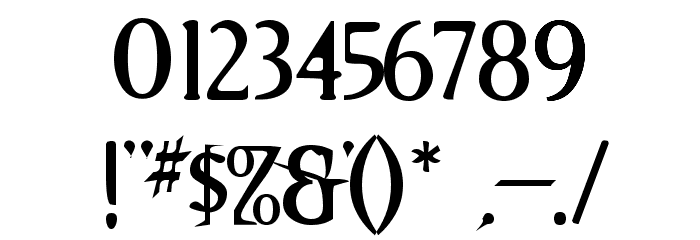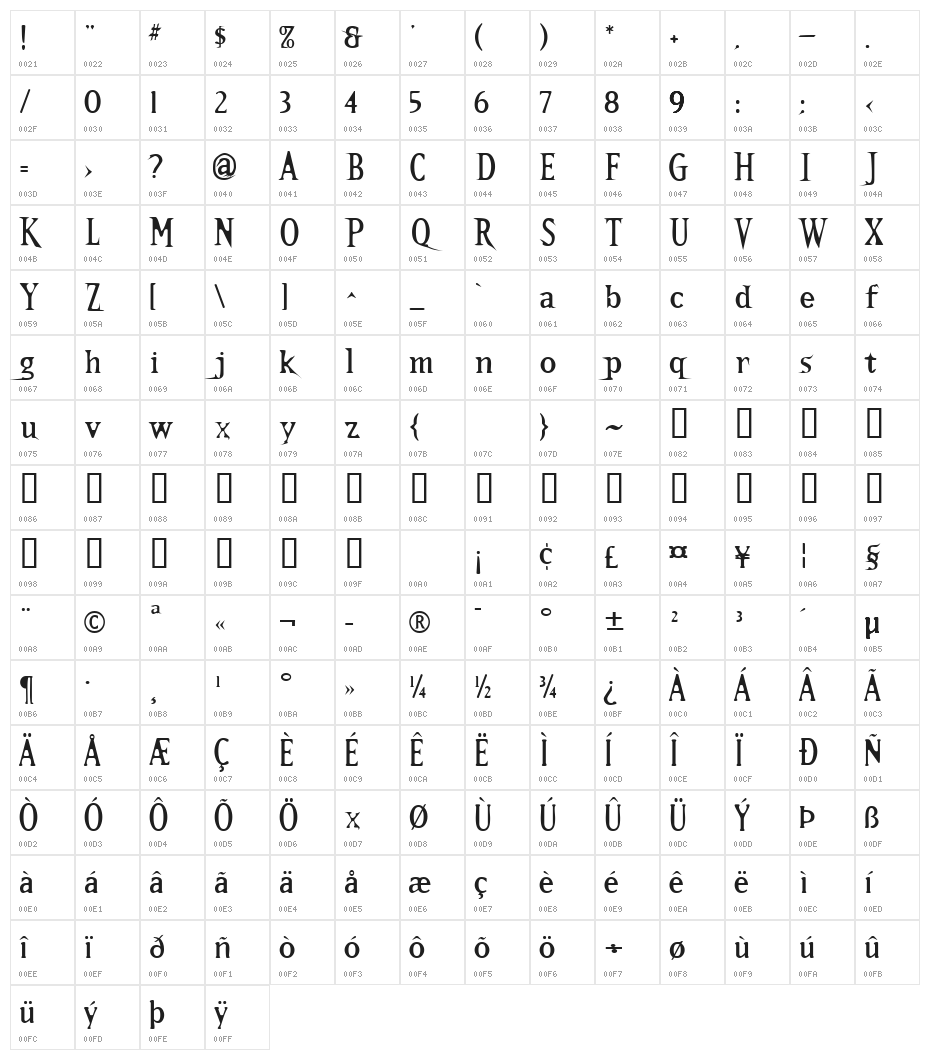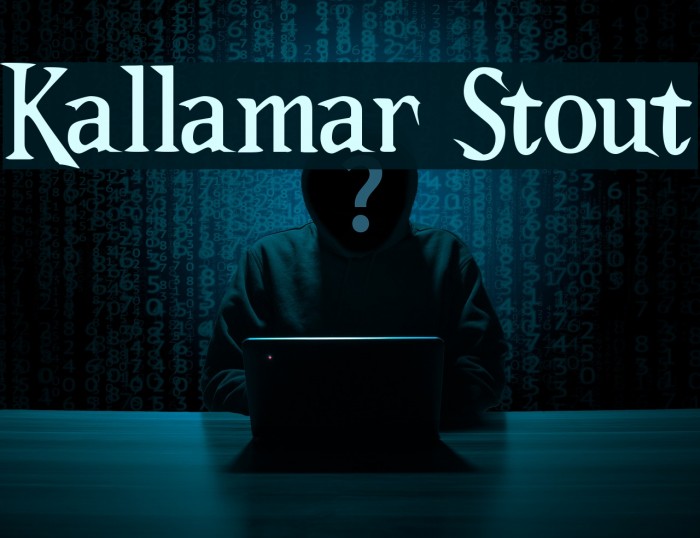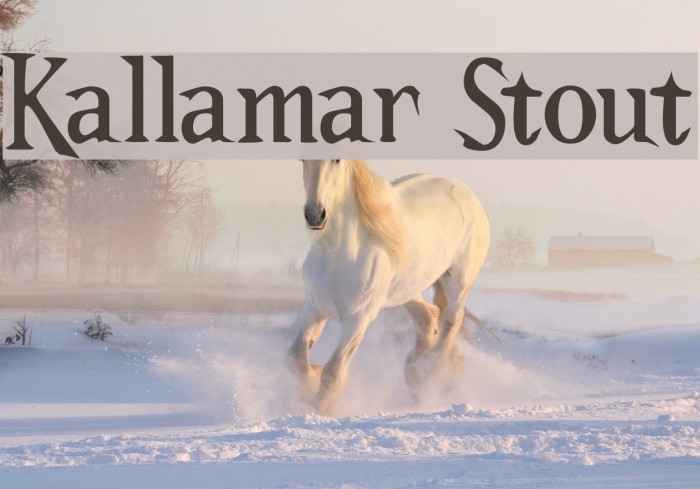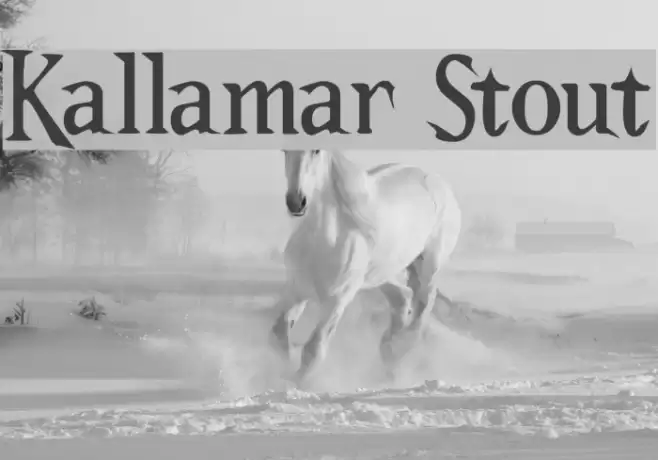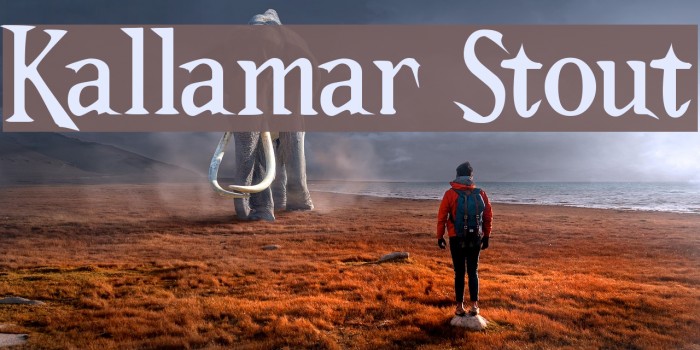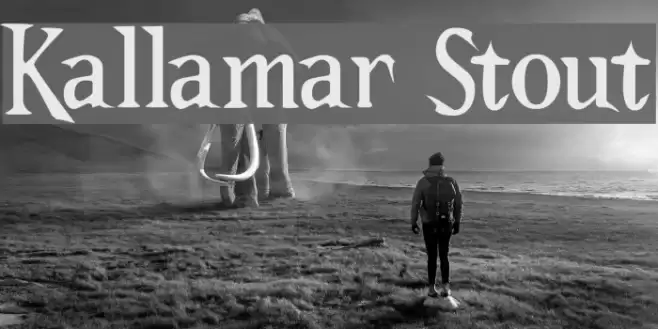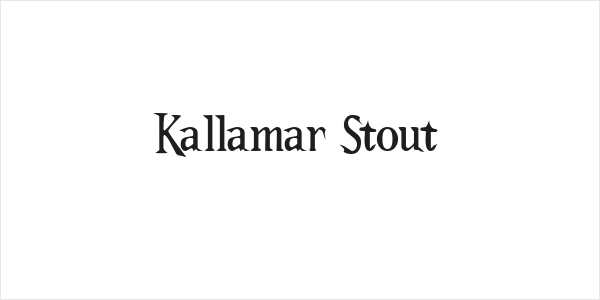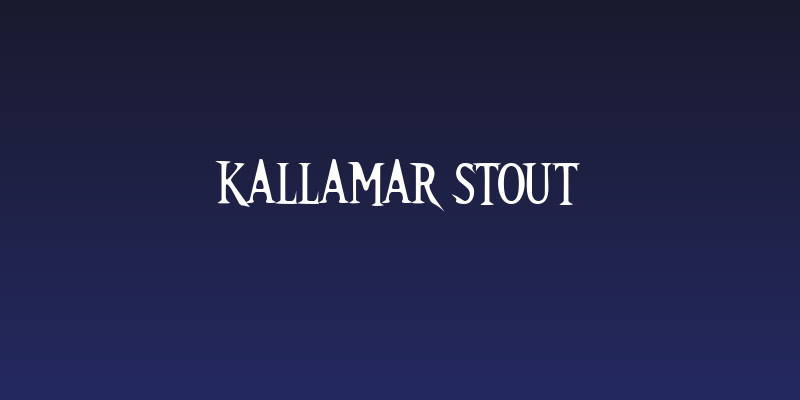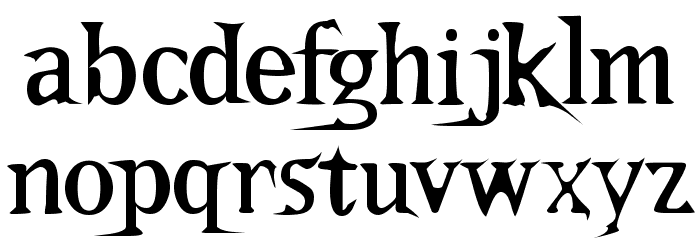
Kallamar Stout Font
Kallamar Stout Description
This font features a bold and dynamic design with sharp, angular serifs that give it a distinctive and striking appearance. The uppercase letters are tall and commanding, while the lowercase letters maintain a consistent style with slightly exaggerated curves and edges. The numbers are robust and clear, ensuring readability. Special characters are designed with the same attention to detail, making them stand out. The overall design is both modern and slightly gothic, suitable for making a strong visual impact.
| Overall Style | Modern, Gothic |
| Proposed Projects | Ideal for branding, posters, book covers, and any project requiring a bold statement. |